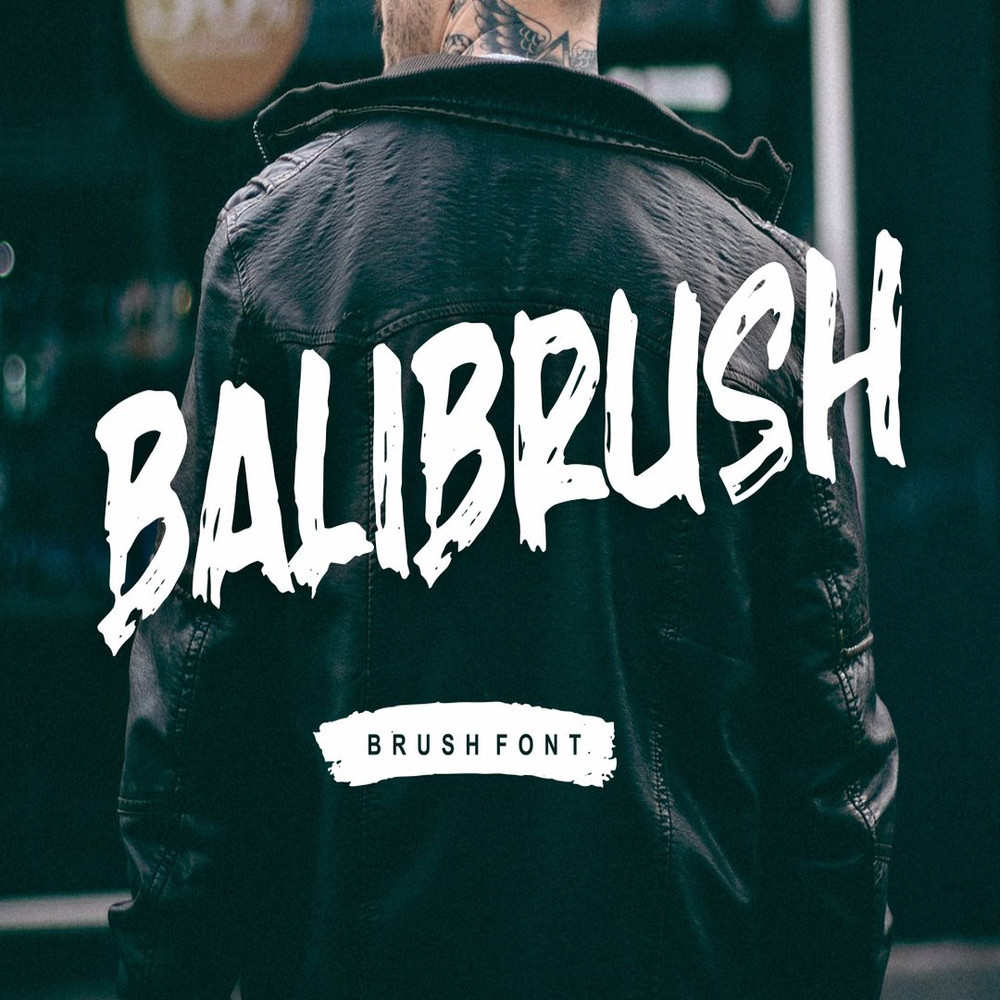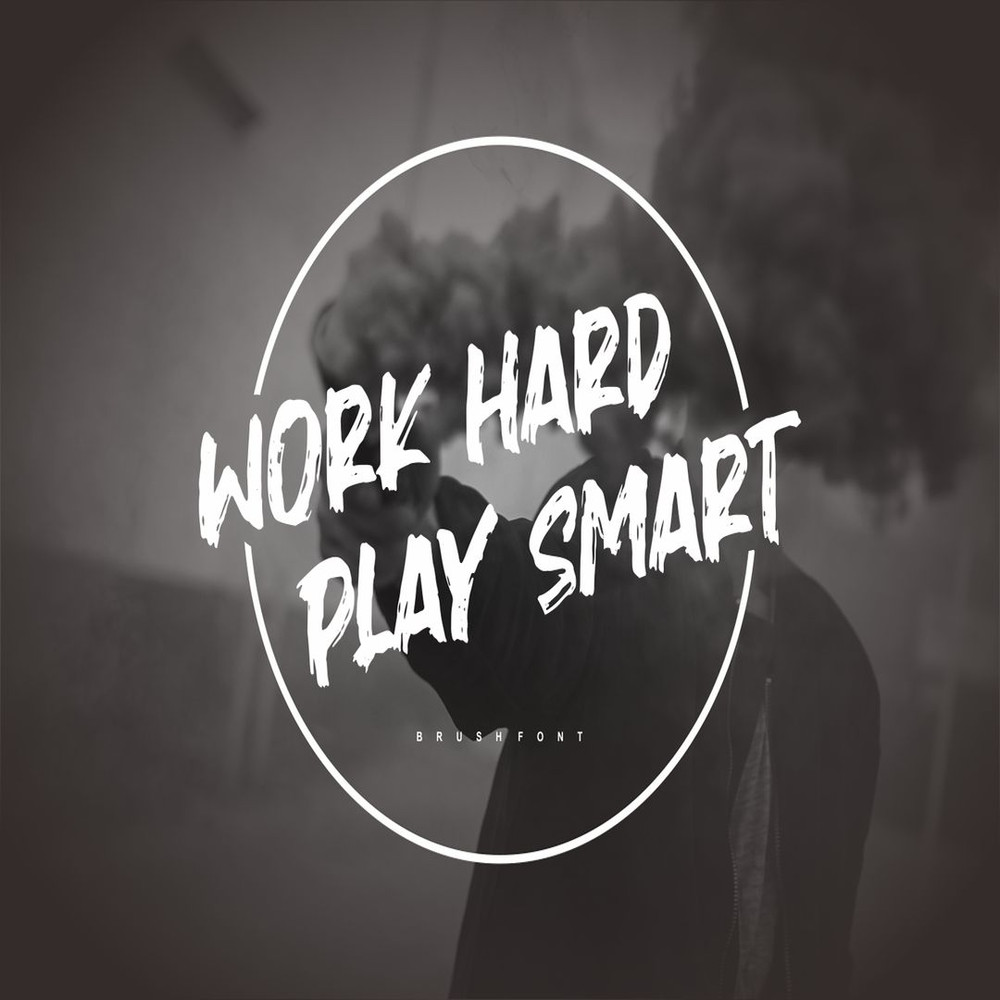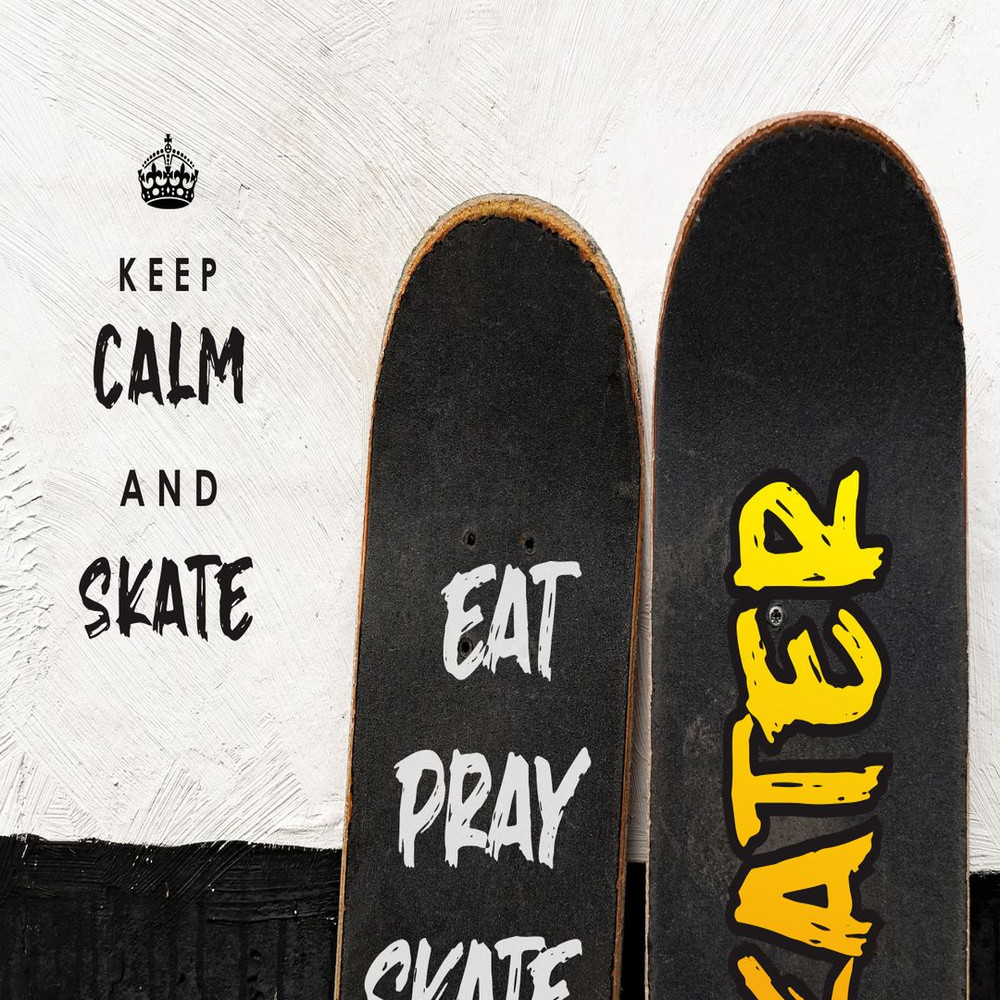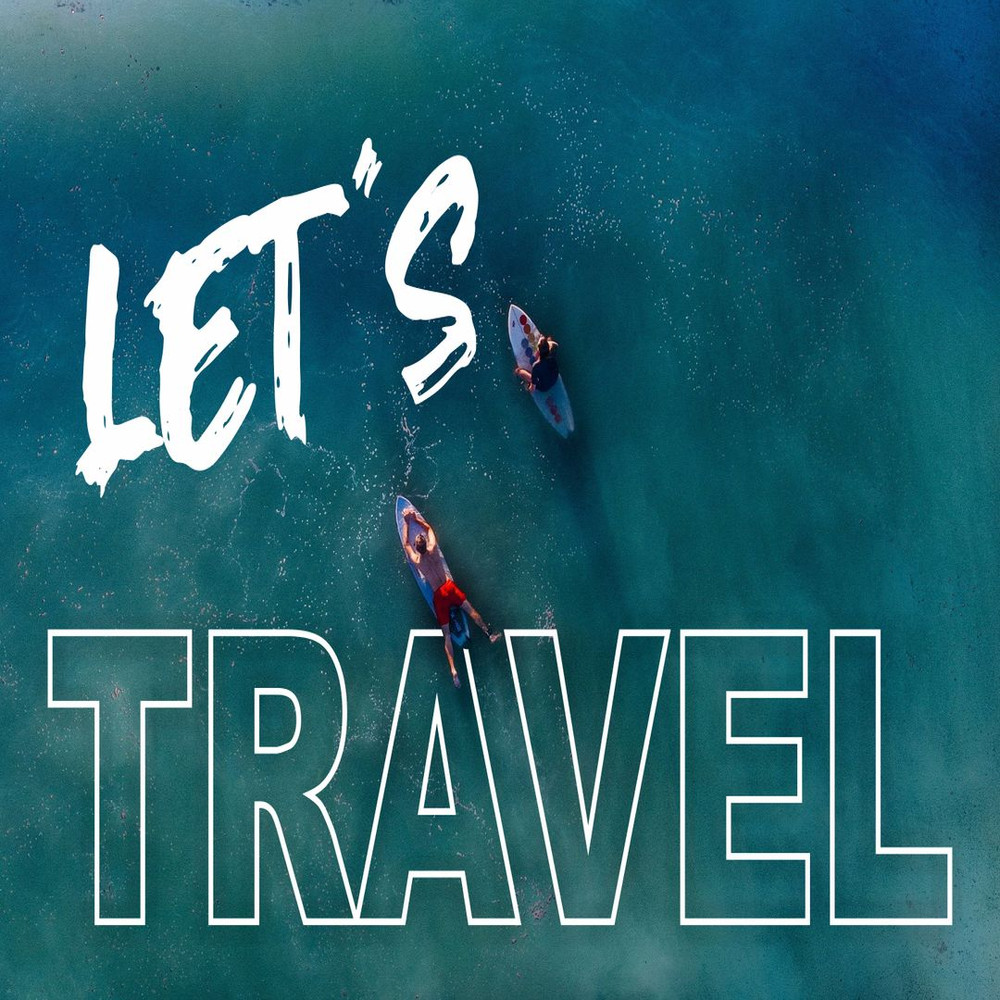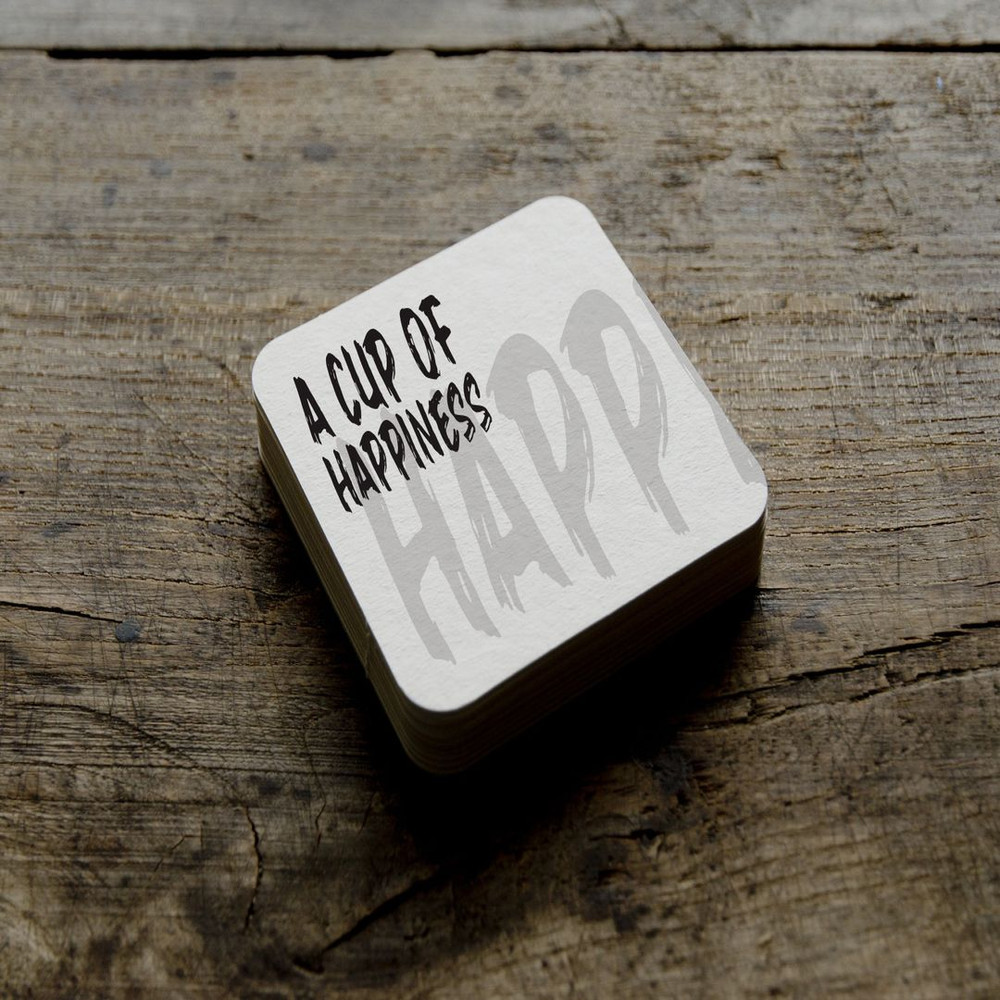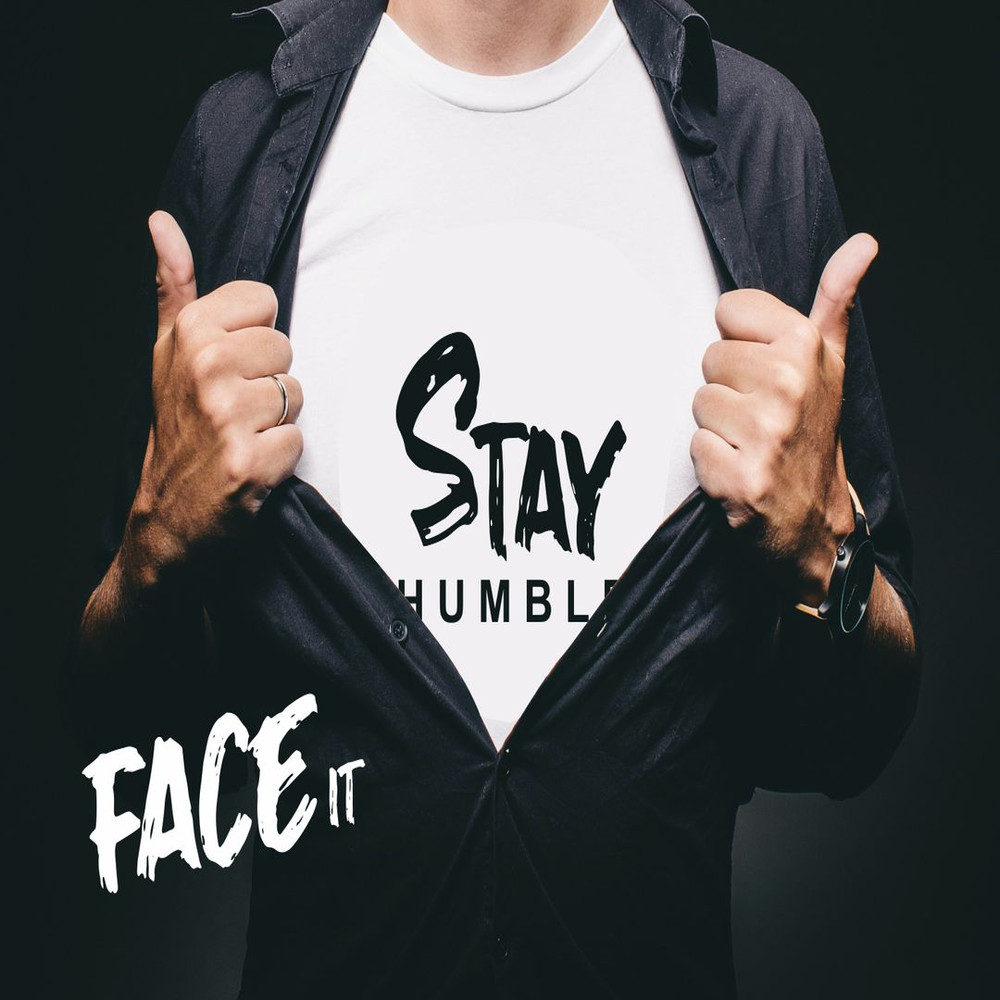
Balibrush – Rough Marker Font Trending Fonts - Digital Font
Cool hand drawn font crafted from textured marker brush, this is Balibrush. An all caps typeface that very recommended for outdoor projects, sport, hipster, and youth.
Balibrush – Rough Marker Font Trending Fonts - Digital Font
Cool hand drawn font crafted from textured marker brush, this is Balibrush. An all caps typeface that very recommended for outdoor projects, sport, hipster, and youth.